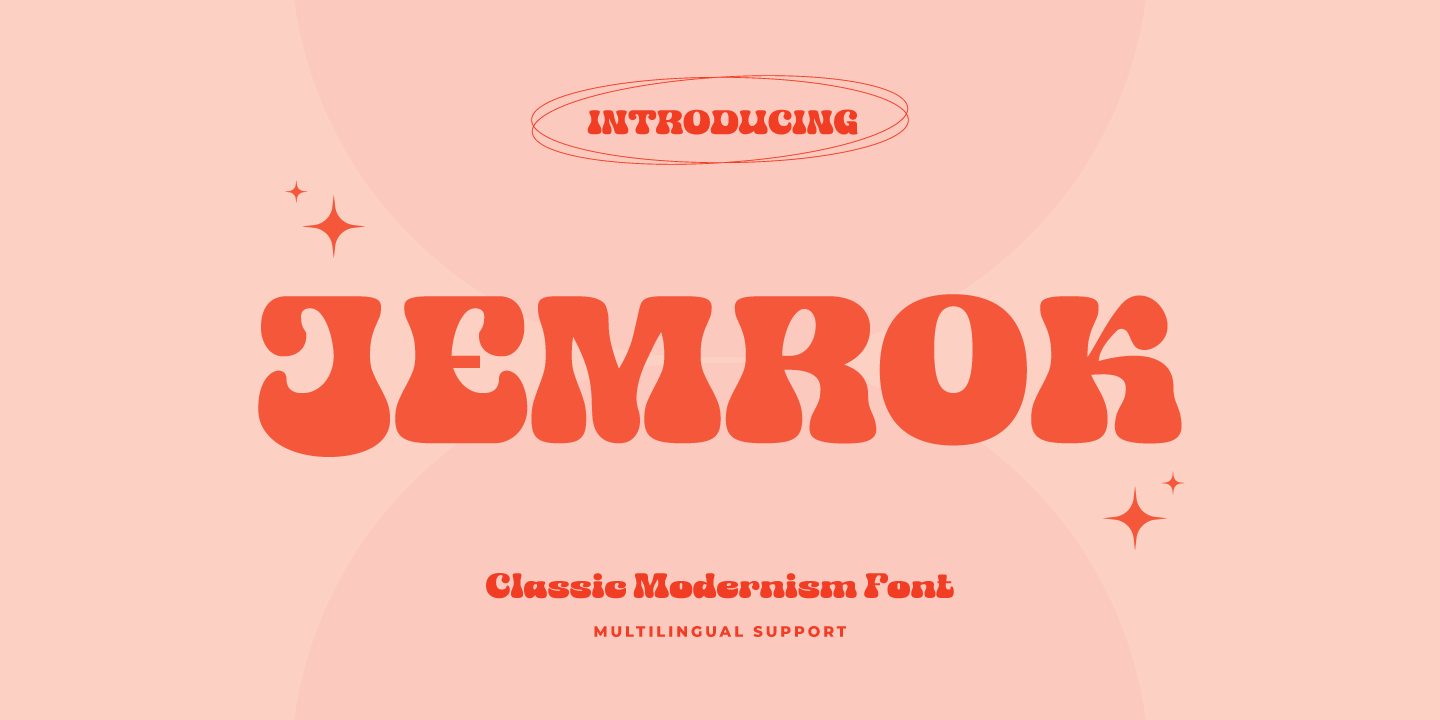
The Jemrok Font excels in various design applications including contemporary urban branding, modern street culture marketing, edgy lifestyle communications, dynamic youth-oriented materials, trendy fashion brand identities, urban art gallery promotions, modern music venue signage, contemporary streetwear packaging, dynamic creative agency materials, and distinguished modern projects that demand urban sophistication and contemporary edge.
What makes the Jemrok Font exciting is its bold embodiment of contemporary urban culture and modern street dynamics through letterforms that capture the essence of city energy and the cutting-edge spirit of modern urban lifestyle. This typeface demonstrates exceptional modernity through carefully crafted characters that suggest the fast-paced rhythm of urban environments, the creative innovation of street culture, and the dynamic energy that makes contemporary city life so culturally vibrant and artistically inspiring. The font's urban personality makes it perfect for modern brands and youth-oriented organizations seeking to communicate contemporary authenticity, street credibility, and the kind of urban sophistication that creates memorable modern experiences through typography that literally pulses with city energy.
The Jemrok Font family typically includes dynamic weight variations that enhance the urban aesthetic, featuring contemporary styling options and extended character sets optimized for modern communications and youth culture applications. These family options often include street-inspired alternates, urban symbols, and contemporary decorative elements that provide designers with comprehensive tools for creating authentically modern typography that celebrates urban culture while maintaining cutting-edge design appeal and street credibility.
Urban lifestyle professionals and contemporary brand organizations consistently select Jemrok Font Free Download for projects requiring typography that communicates modern authenticity and urban sophistication. This typeface delivers exceptional performance in contemporary marketing, urban branding, and modern communications where establishing edge and creating dynamic urban atmosphere is essential for youth culture engagement. The font's contemporary character makes it particularly effective for fashion and music applications. Download Jemrok Font Free Download today to access this dynamically modern typeface that transforms urban communications with its contemporary elegance and street sophistication, creating compelling modern experiences that honor the magnificent energy of urban culture while celebrating the creative innovation that defines authentic contemporary lifestyle and modern street excellence.